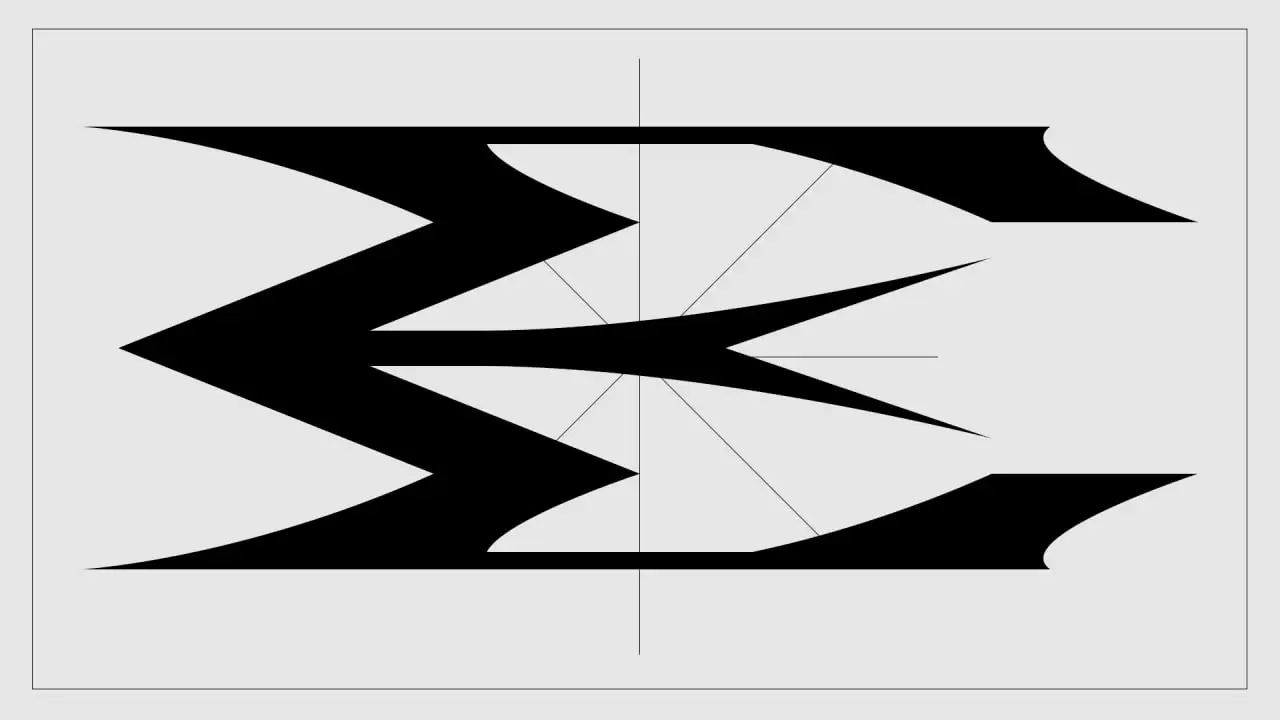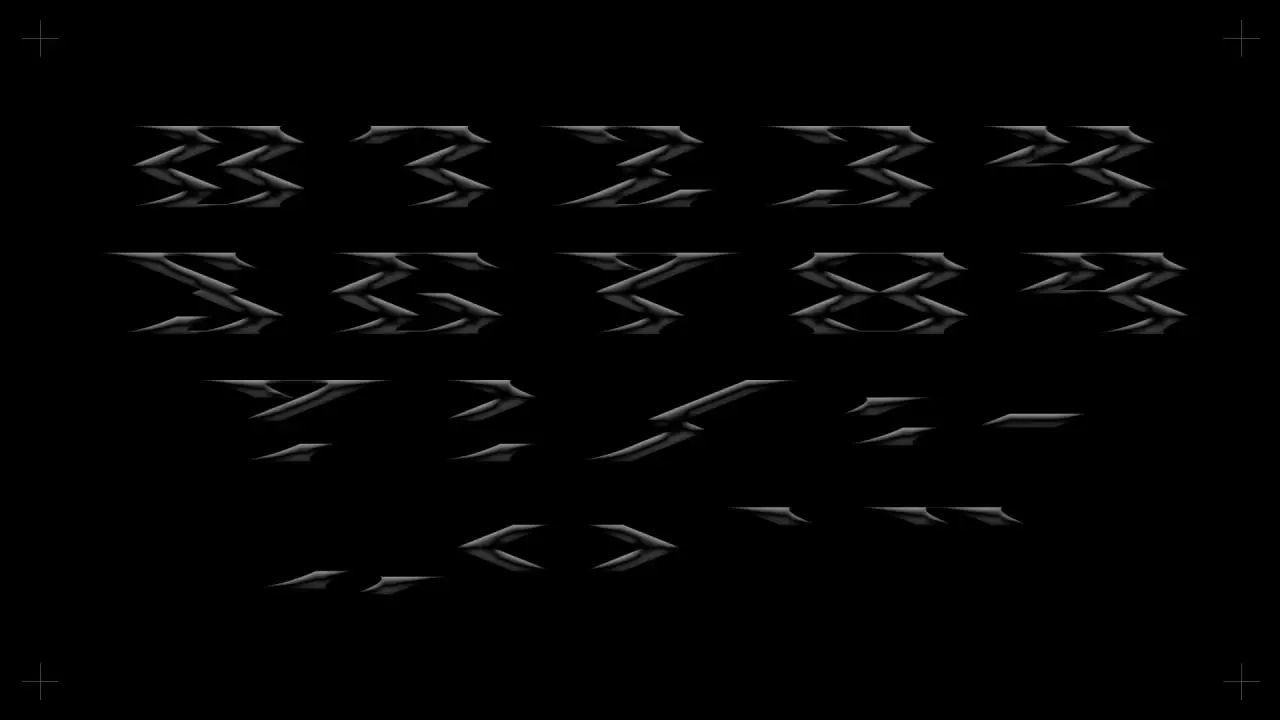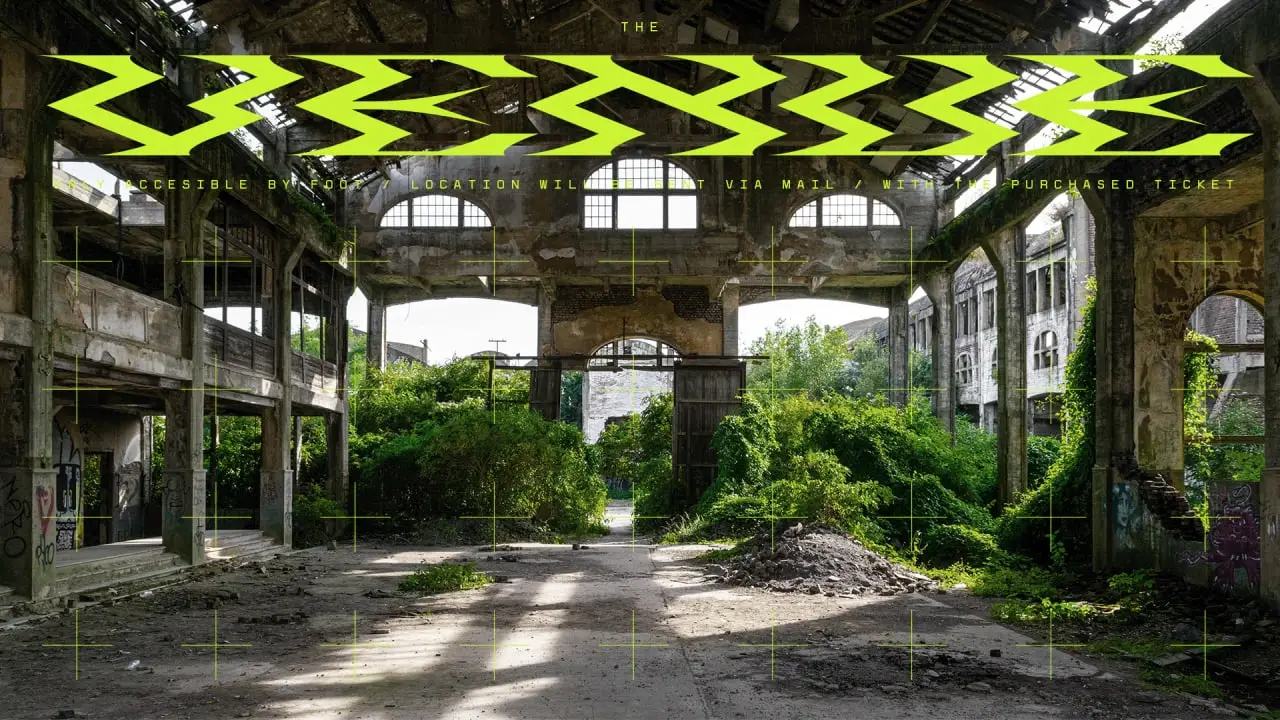
Hitherto-Free Font
The Hitherto-Free Font is a versatile typeface designed to bring a unique touch to your projects. With its clean lines and modern aesthetic, this font is perfect for a variety of applications, including branding, logos, web design, and print materials.
• Multiple font weights for flexibility in design
• Stylish and contemporary letterforms
• Supports a wide range of languages
• Weight options: Regular, Bold, Italic
• Ideal for creating eye-catching headlines and titles
• Use in branding projects to establish a distinct identity
• Perfect for both digital and print applications